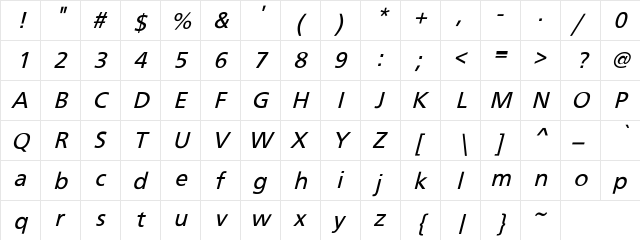
Basler Oblique Lite Regular Lite
Design Context for Basler Oblique Lite Typeface
Basler Oblique Lite takes a measured approach to typography — its balanced proportions and neutral character make it a reliable workhorse for both digital and print work. Its italic angle brings a sense of urgency and motion to the letterforms.
Pro Tip: Use Basler Oblique Lite for emphasis, pull quotes, and subheadings where its slanted energy can add rhythm to the layout.